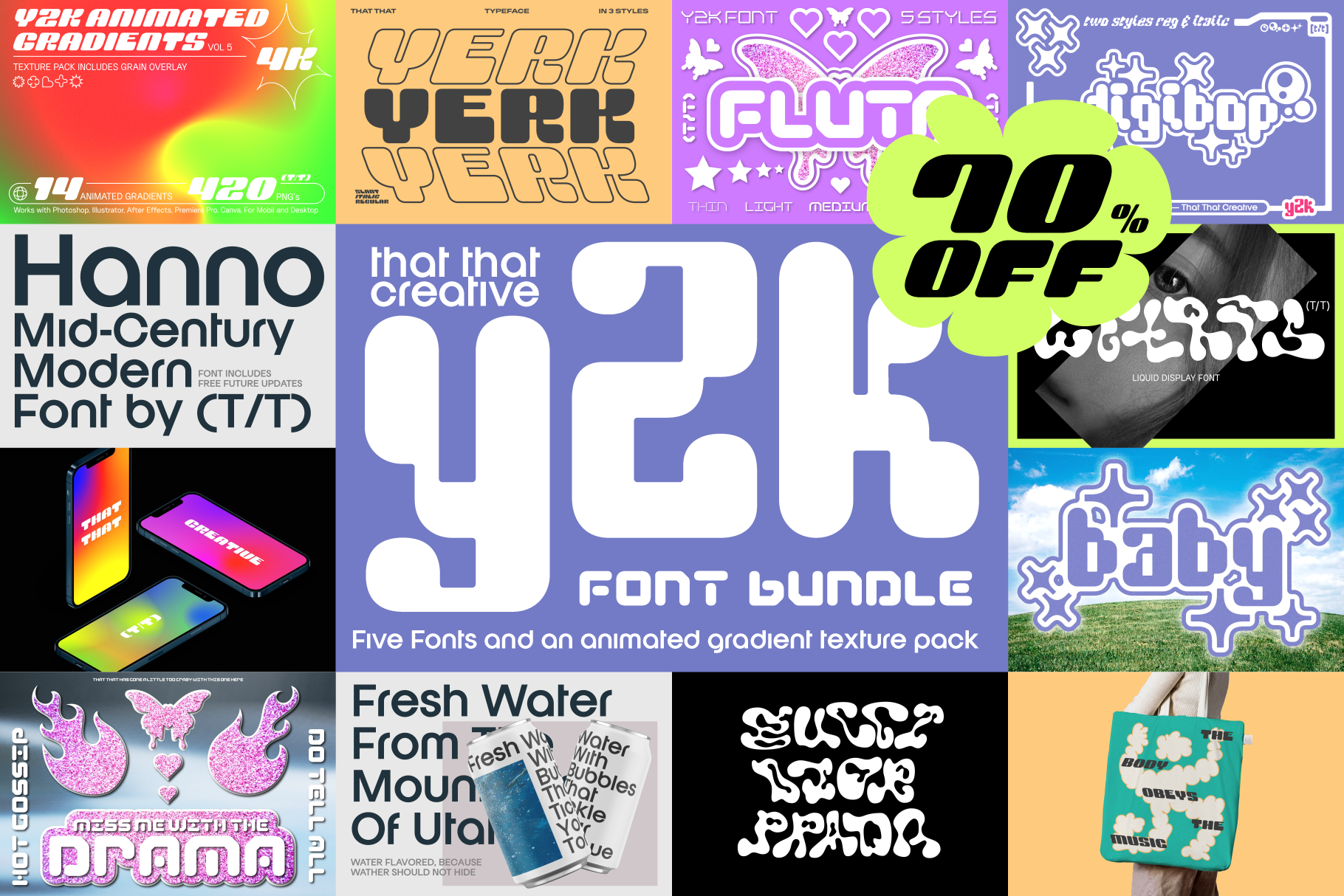
Y2K Font Bundle
This is the perfect product bundle for the contemporary designer. It includes 5 fonts and one animated gradient texture pack inspired by the Y2K and 2000's aesthetic. if you are looking for retro futuristic mid century modern throwback, liquid fonts, we got em all. This bundle is perfect for branding, print, posters, logos, editorial, instagram, tie Tok and whatever else you are looking to design.
- Digibop https://crmrkt.com/8D5Q4R
- Wetrishttps://crmrkt.com/0Pxv7Q
- Yerk https://crmrkt.com/5e5KM8
- Fluta https://crmrkt.com/OgdKo6
- Hanno https://crmrkt.com/lvz84G